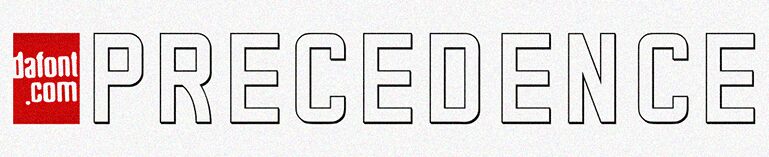
Precedence Regular
Precedence is a unique sans serif font by Vladimir Nikolic. With its semi-light weight and condensed width, it's perfect for creating captivating logos and memorable headlines. Its versatility also makes it suitable for branding projects, web designs, posters, as well as editorial designs. Precedence offers a great balance between readability and style that will make your design stand out!